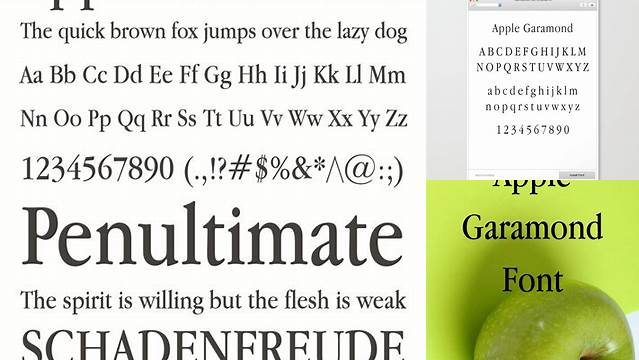
Apple Garamond Font: Free Download Options & Alternatives
Apple Garamond font, a cornerstone of Apple's brand identity for nearly two decades, exudes a unique blend of elegance and readability. Its crisp serifs and balanced letterforms made it a favorite for everything from product packaging to user interfaces. If you're captivated by its classic charm and looking to incorporate it into your design projects, you might be wondering, "Where can I find an Apple Garamond font free download?" Let's dive into the history of this iconic typeface, explore its distinctive features, and discuss the possibilities for legally acquiring it for your creative endeavors.
Delving into the Legacy of Apple Garamond
The Apple Garamond font's roots trace back to the renowned French typographer Claude Garamond, who crafted his timeless typeface in the 16th century. Garamond's designs are celebrated for their graceful lines, balanced proportions, and exceptional legibility. In 1983, Apple commissioned ITC (International Typeface Corporation) to create a modified version of Garamond specifically tailored for their brand. This resulted in Apple Garamond, a typeface that became synonymous with Apple's commitment to both innovation and aesthetic appeal.
Apple Garamond's Impact on Apple's Brand Identity: This customized font played a pivotal role in shaping Apple's visual identity from the mid-1980s to the early 2000s. It graced product packaging, marketing materials, and even the user interfaces of early Macintosh computers. The font's sophisticated and approachable character perfectly complemented Apple's brand values, conveying a sense of both technological prowess and user-friendliness. The sleekness of the typeface mirrored the company's innovative spirit, while its readability ensured a positive user experience. Apple Garamond became a recognizable symbol of the Apple brand, instantly associating the company with quality, design, and a forward-thinking approach.
Key Characteristics of Apple Garamond: Apple Garamond possesses several distinctive features that contribute to its enduring appeal. The font's sharp serifs provide a sense of formality and elegance, while its carefully balanced letterforms ensure exceptional readability, even at smaller sizes. The x-height, the height of lowercase letters, is relatively large, which further enhances legibility. Apple Garamond also boasts a subtle warmth and humanistic touch, setting it apart from more sterile or geometric typefaces. Its elegant curves and fine details create a sense of sophistication, while its overall clarity makes it a practical choice for a wide range of applications. Whether used for headlines, body text, or branding materials, Apple Garamond consistently delivers a polished and professional look.
Finding Apple Garamond: Navigating the Free Download Landscape
Legitimate Alternatives to Apple Garamond: While the original Apple Garamond might be elusive, several excellent Garamond variations are available for licensing or even free use under open-source licenses. These alternatives capture the essence of the Garamond style while respecting copyright laws. Some popular options include EB Garamond, a meticulously crafted open-source version of Garamond, and Adobe Garamond Pro, a professional-grade typeface that offers a wide range of weights and styles. These Garamond alternatives provide a similar aesthetic to Apple Garamond, with the same elegance and readability that made the original so popular. They offer designers a legal and ethical way to incorporate the Garamond style into their projects, while also supporting the font design community. Exploring these options can lead to discovering a perfect fit for your design needs, all while adhering to copyright regulations.
Free Garamond Options and Where to Find Them
For designers on a budget, several free Garamond options provide a fantastic alternative to the original Apple Garamond. These fonts, often available under open-source licenses, allow you to use them freely for personal and commercial projects. Sites like Google Fonts and Font Squirrel are excellent resources for discovering high-quality free fonts, including Garamond variations. Let's explore some notable free Garamond options:
EB Garamond: EB Garamond is a standout choice among free Garamond fonts. This meticulously crafted typeface, spearheaded by Georg Duffner, is a revival of Claude Garamont's original designs. EB Garamond boasts exceptional clarity and elegance, making it suitable for a wide range of applications, from body text to headlines. Its comprehensive character set includes a variety of ligatures and alternates, providing designers with ample creative flexibility. The open-source nature of EB Garamond means it can be freely used, distributed, and even modified, making it a valuable asset for any designer's toolkit. Its commitment to historical accuracy and its modern refinements make it a truly exceptional free typeface.
Google Fonts Garamond: Google Fonts also offers its own version of Garamond, providing a readily accessible option for web and print projects. This Garamond variant maintains the classic elegance of the original while offering excellent legibility across different screen sizes. The Google Fonts Garamond is a reliable choice for body text and headings, ensuring a professional and polished look. Its seamless integration with Google's web font service makes it incredibly easy to incorporate into websites and online applications. The font's consistency and readability make it a practical choice for projects of all sizes, and its free availability ensures that it's accessible to designers of all backgrounds.
Conclusion: Embracing the Garamond Legacy
While an Apple Garamond font free download might not be readily available, the spirit of this iconic typeface lives on through its Garamond relatives. By exploring legitimate alternatives, such as EB Garamond and Google Fonts Garamond, and by applying smart typography techniques, you can capture the timeless elegance and readability of Apple Garamond in your own designs. So, embrace the legacy of Garamond, and let its graceful letterforms elevate your creative projects.